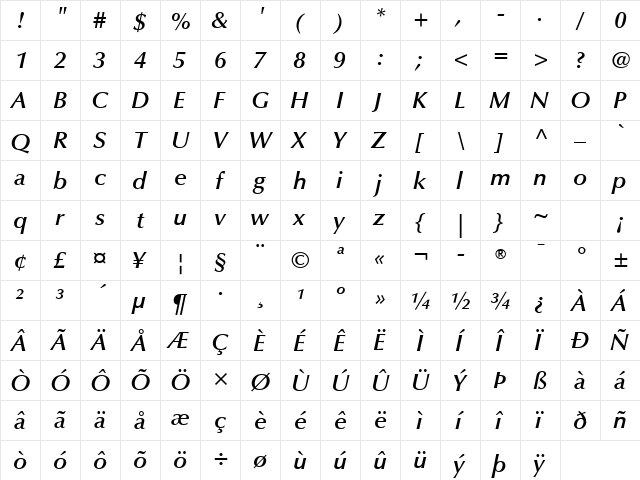
Optima LT Std DemiBold Demibold Italic
| Designer | Hermann Zapf |
Design Context for Optima LT Std DemiBold Typeface
Optima LT Std DemiBold is a composed and adaptable typeface that performs quietly and consistently across a wide range of design contexts. The slanted form adds forward momentum and visual energy. Its bold stroke weight gives it real presence on the page.